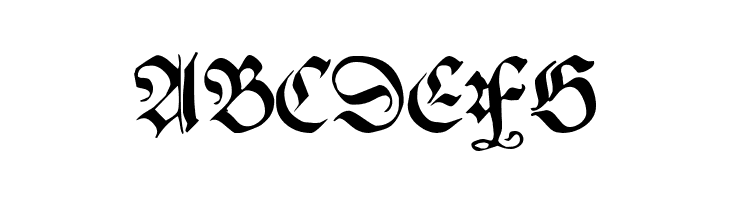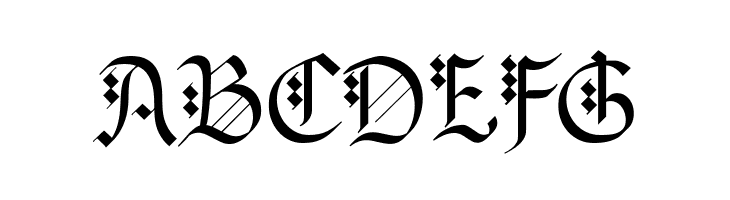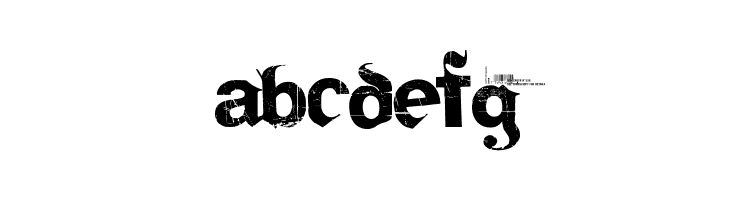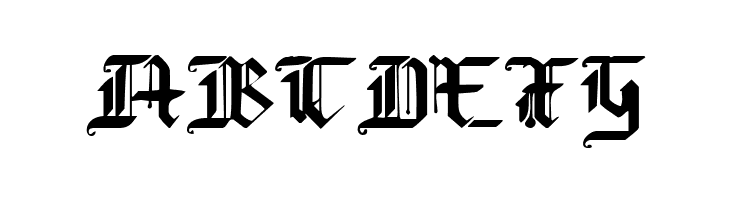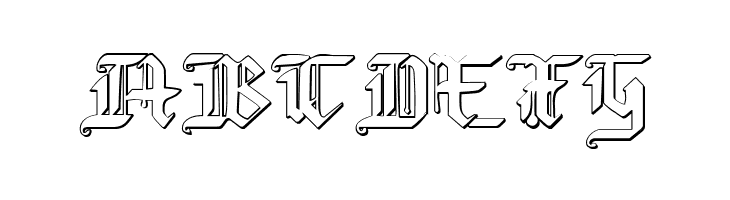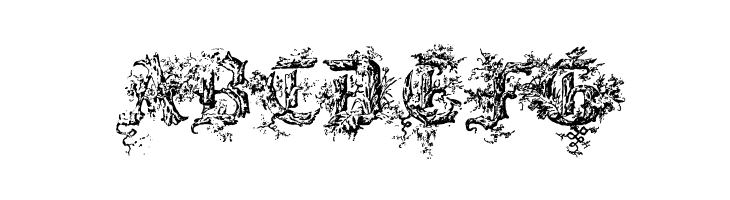
A traditional Blackletter font with ornate, angular letterforms and high contrast.
A classic blackletter font with ornate, angular strokes and decorative flourishes.
A classic blackletter font with ornate, historical elegance.
A classic blackletter font with intricate, angular letterforms and a gothic aesthetic.
A bold, distressed blackletter-style font with a vintage, grunge aesthetic.
A traditional Blackletter font with ornate, angular letterforms.
A bold, blackletter-style font with sharp, angular lines and intricate detailing.
A bold, shadowed Blackletter-style font with intricate detailing.
A bold, condensed Blackletter-style font with intricate, gothic-inspired characters.
A bold blackletter font with sharp, angular lines and historic elegance.
A bold blackletter font with ornate, sharp angles and dramatic strokes.
A bold, ornate blackletter font with intricate details and a gothic aesthetic.
A bold, ornate Blackletter font with intricate details and a dramatic style.
An ornate Blackletter font with intricate flourishes and sharp angles.
A bold, intricate blackletter font with a historic and gothic style.
A traditional Blackletter font with sharp, angular lines and a dense appearance.
An ornate and intricate Blackletter-style font with high contrast and decorative flourishes.
A classic blackletter font with ornate, intricate letterforms.
A classic Blackletter font with bold, ornate characters and high contrast strokes.
A bold, blackletter-style font with sharp, angular lines and pronounced serifs.
A condensed blackletter font with bold, angular lines and medieval styling.
An outlined, angular blackletter-style font with sharp serifs and geometric forms.
A classic blackletter font with ornate and angular letterforms.
An ornate, classic blackletter font with intricate details and historical elegance.
A bold Blackletter font with angular strokes and intricate detailing.